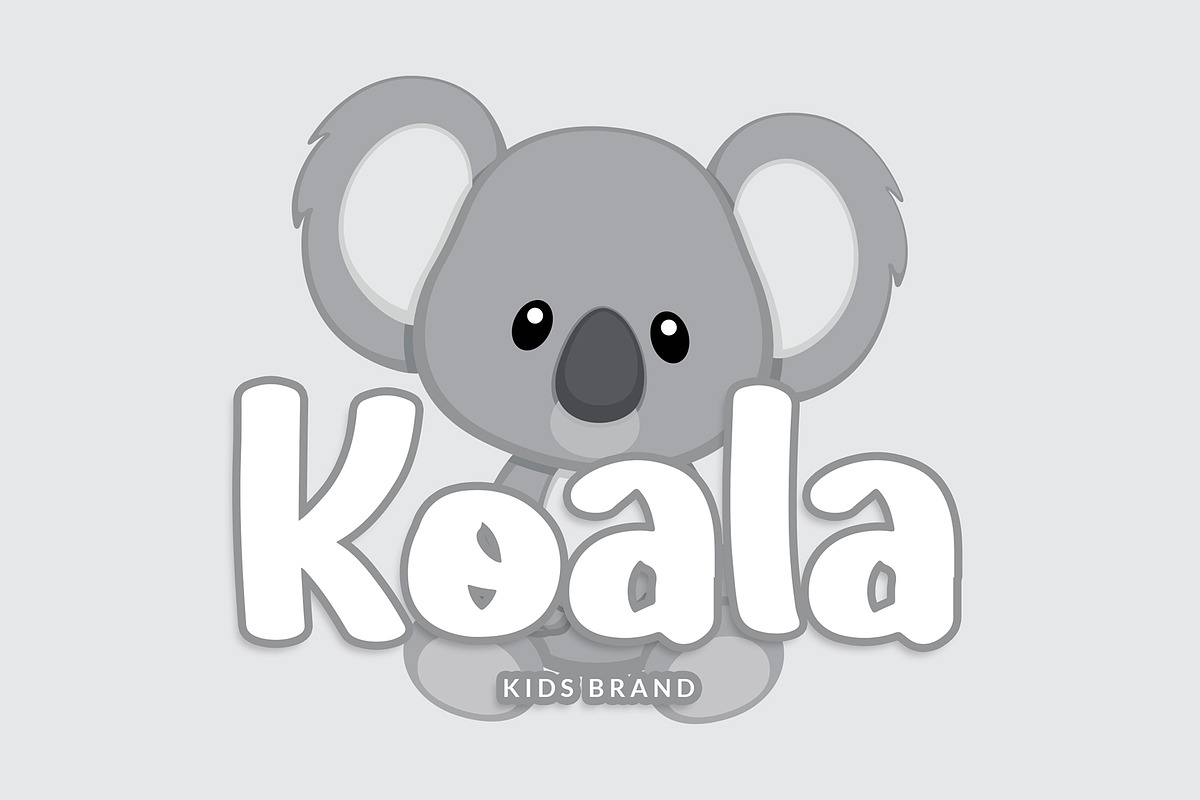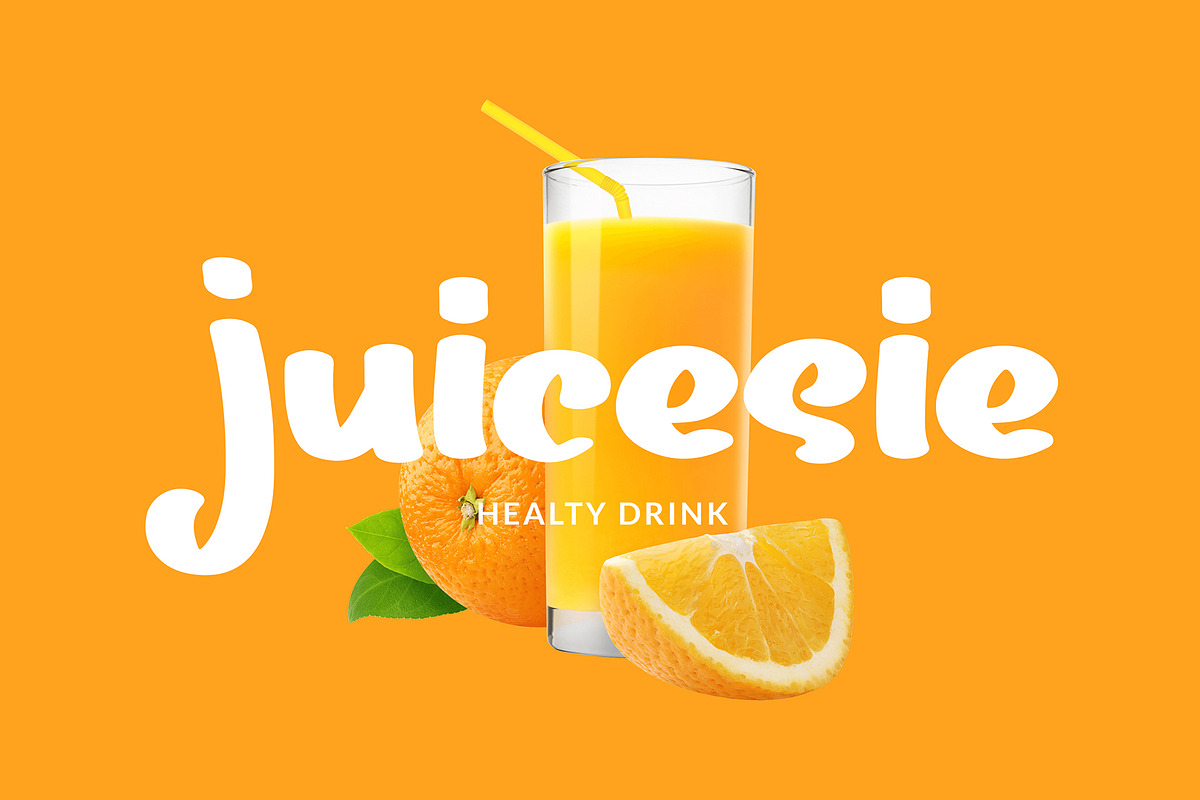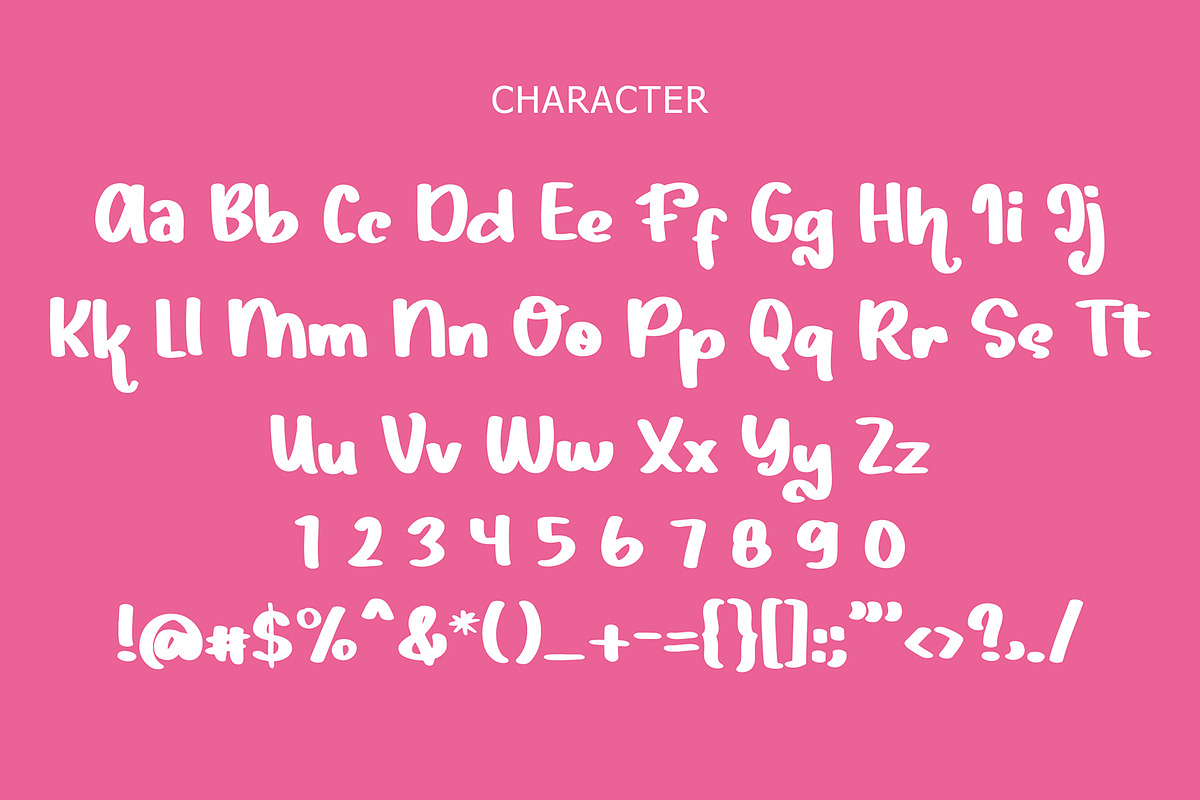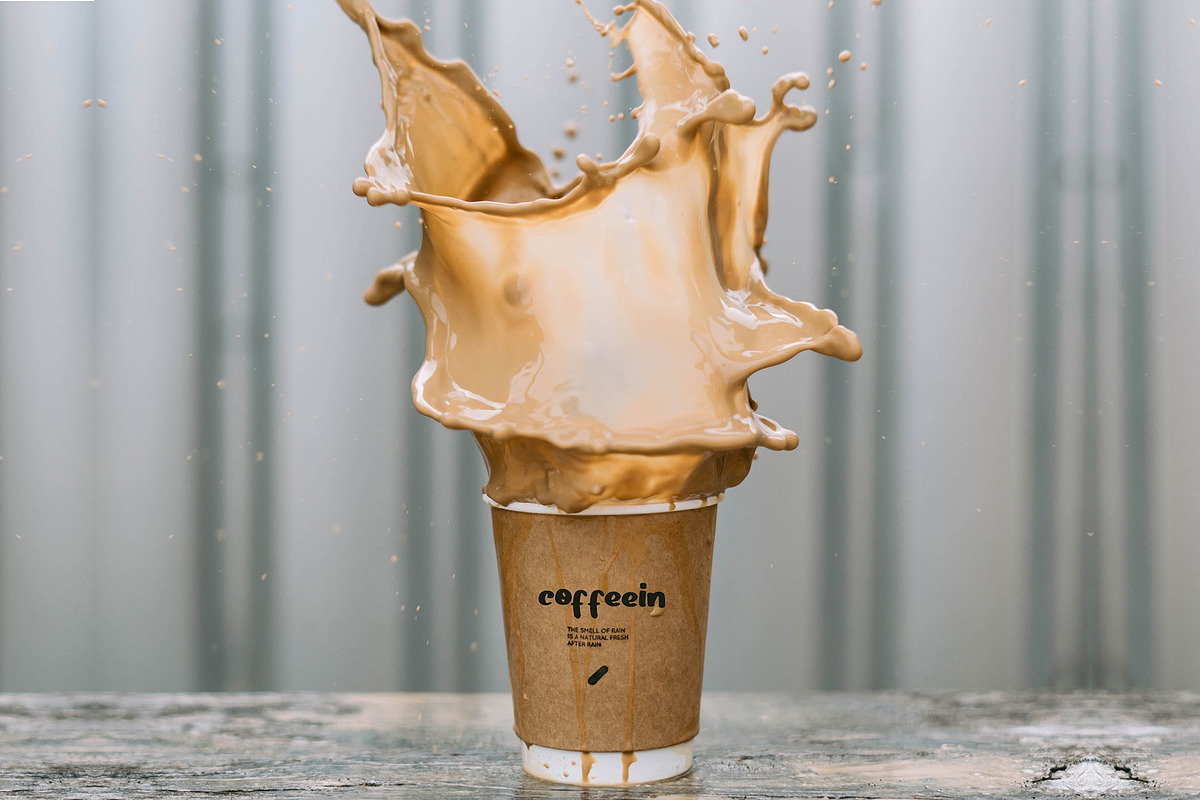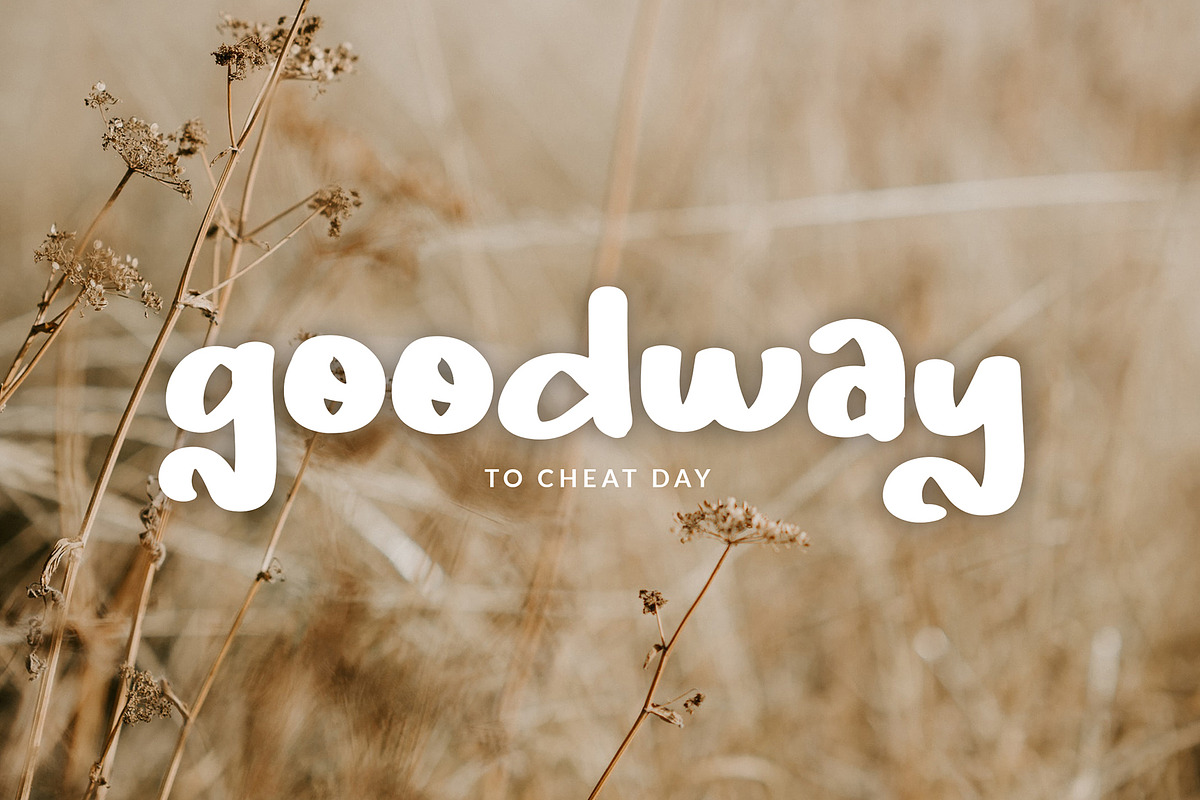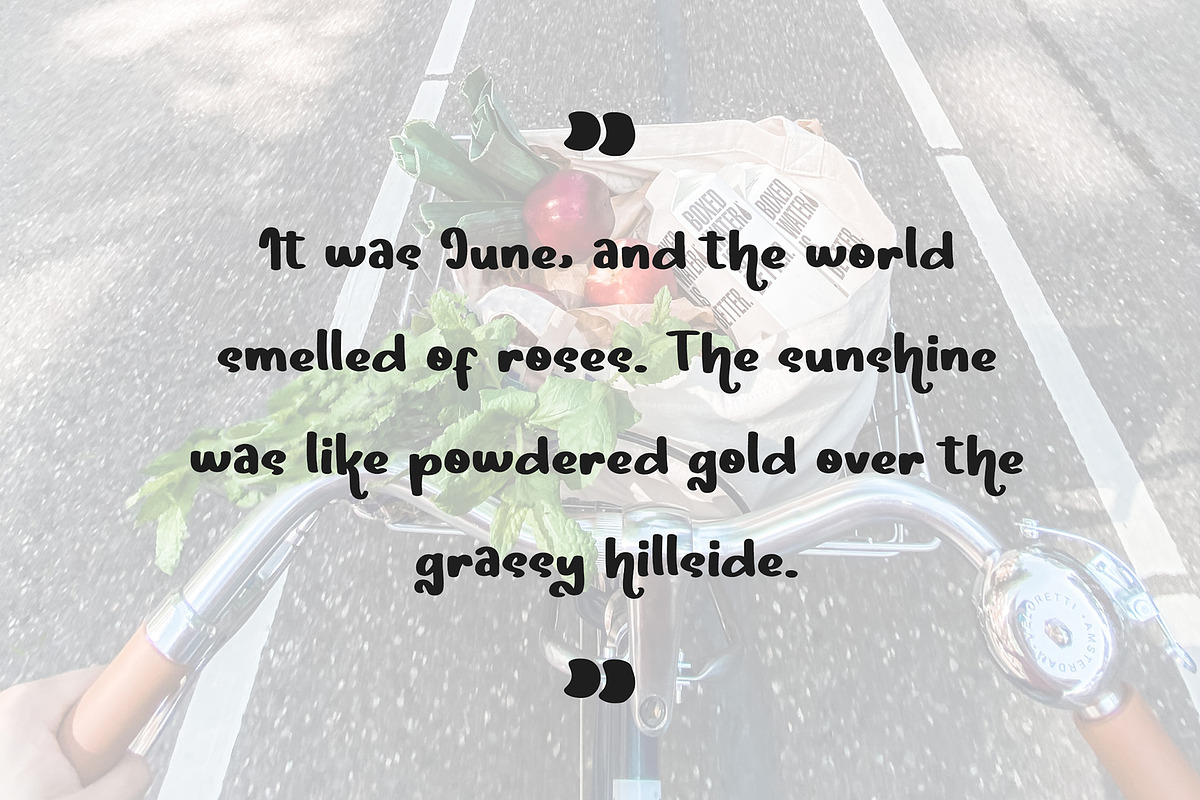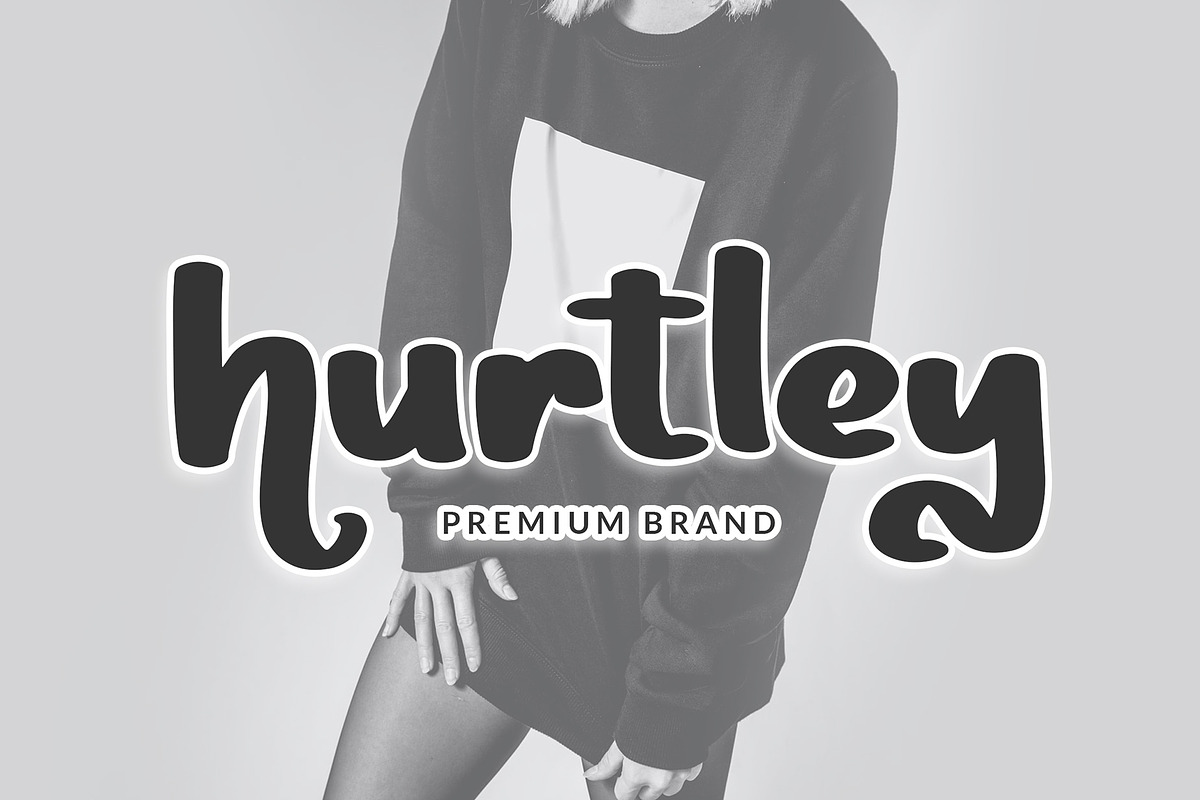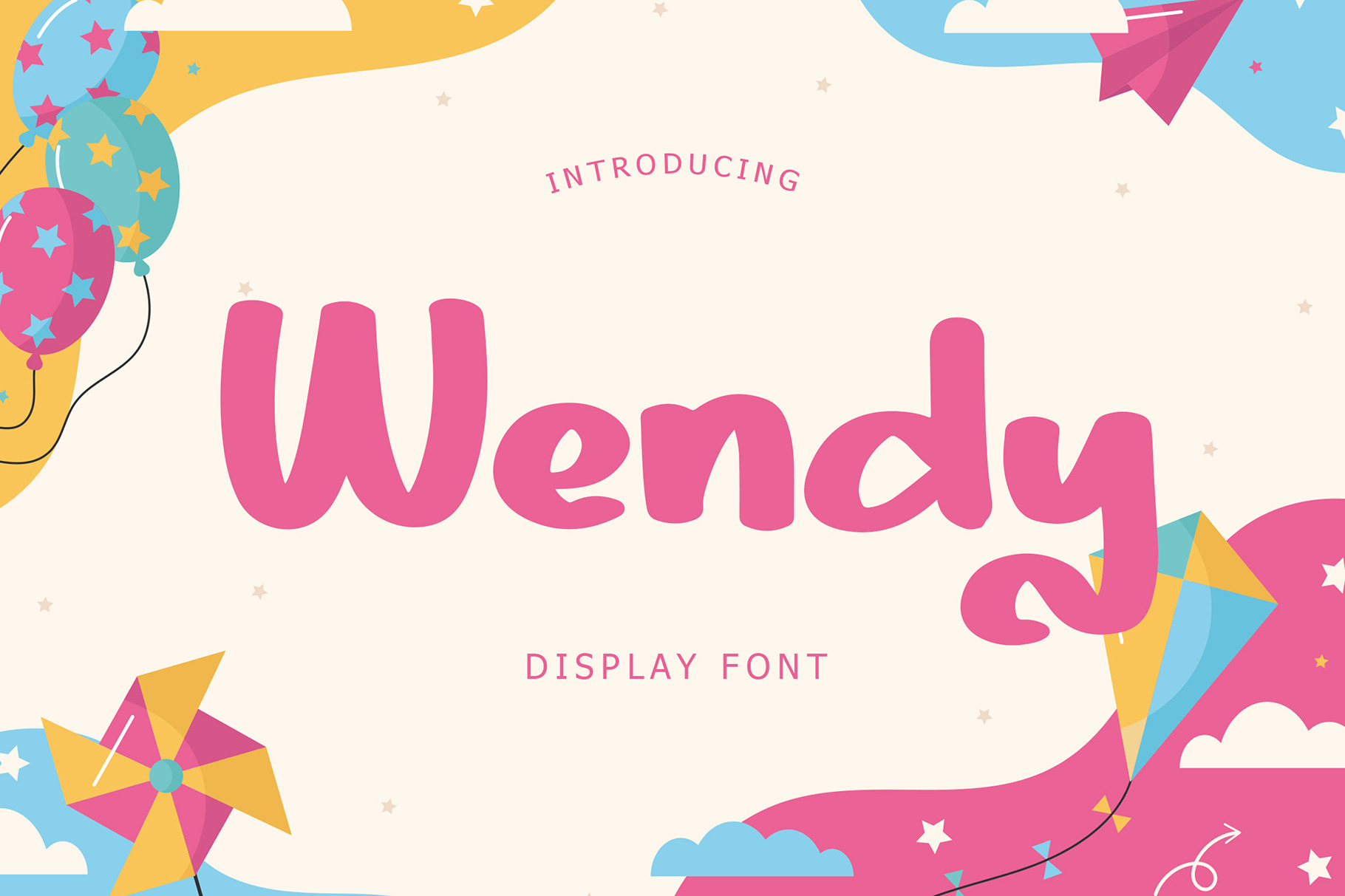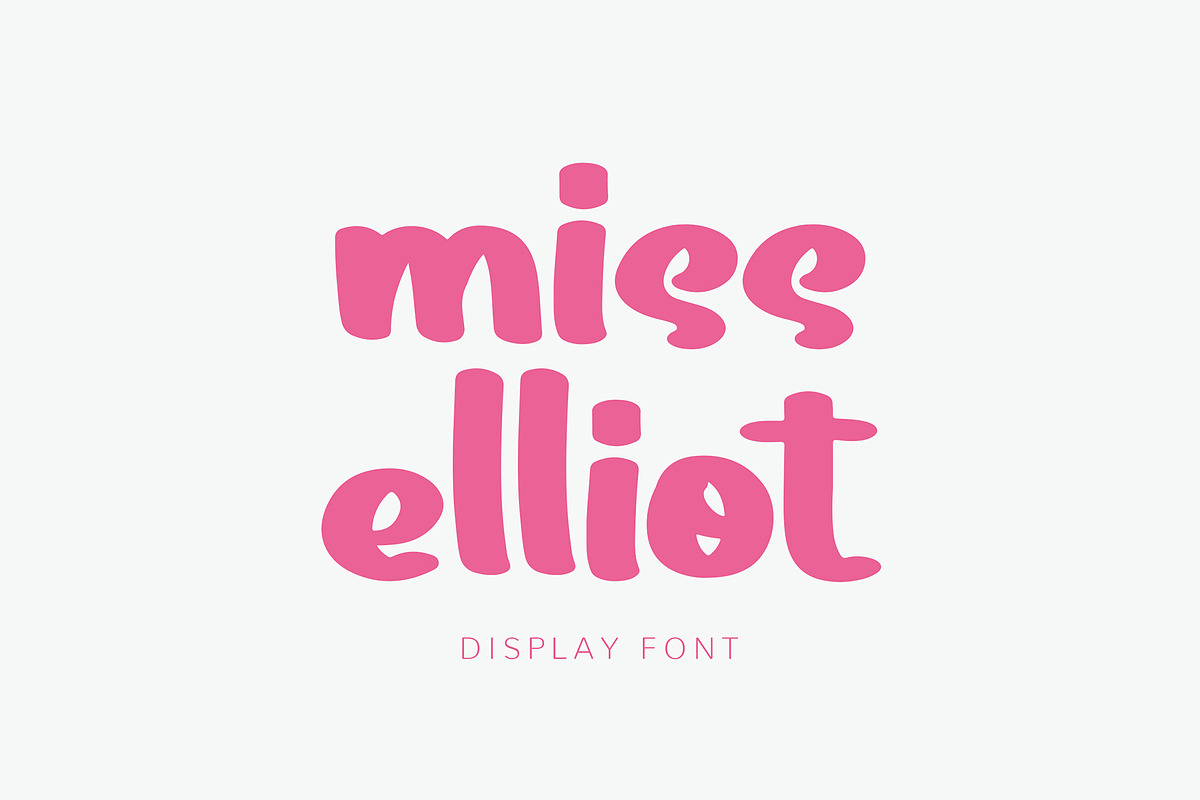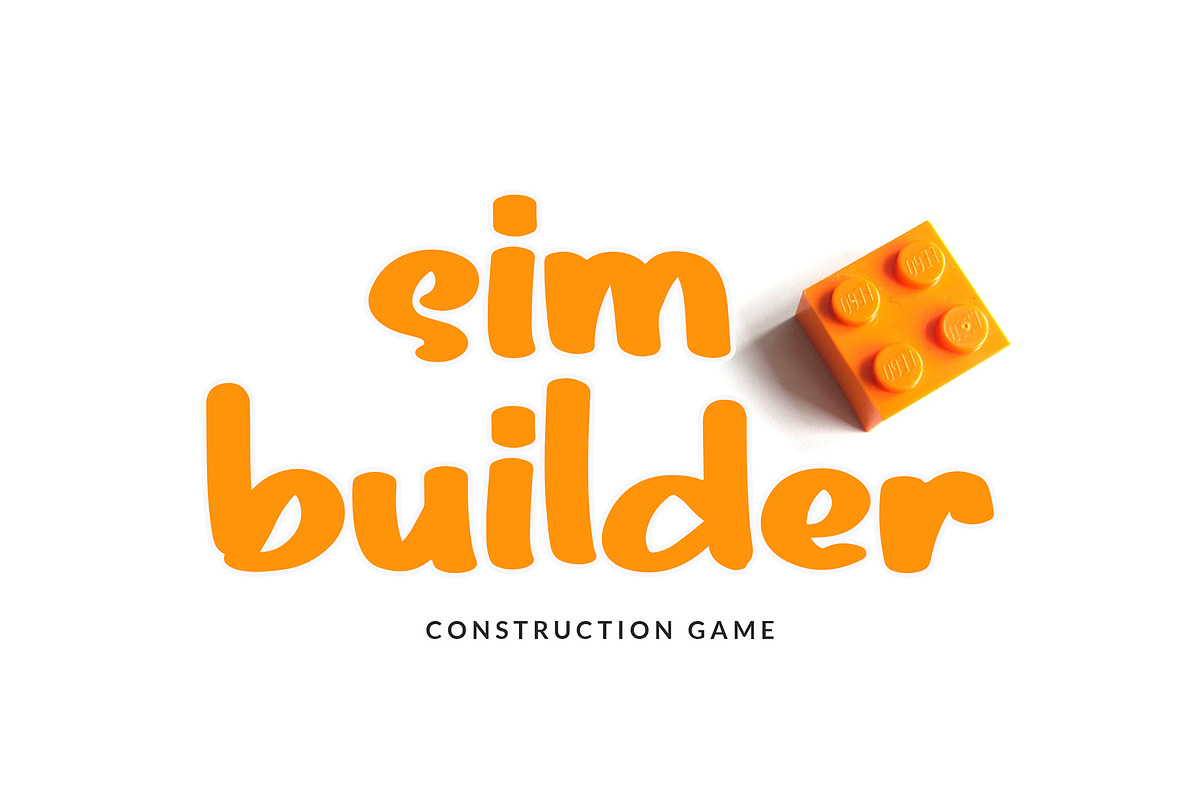
Wendy Bold Display Font
Wendy Bold Display Font is an exciting and extraordinary display font that will make any kid-themed design stand out!
Wendy Bold Display Font is perfect for branding projects, logo, T-shirt designs, book cover design, social media posts, advertisements, product packaging, product designs, label, watermark, invitation, stationery, and any projects.